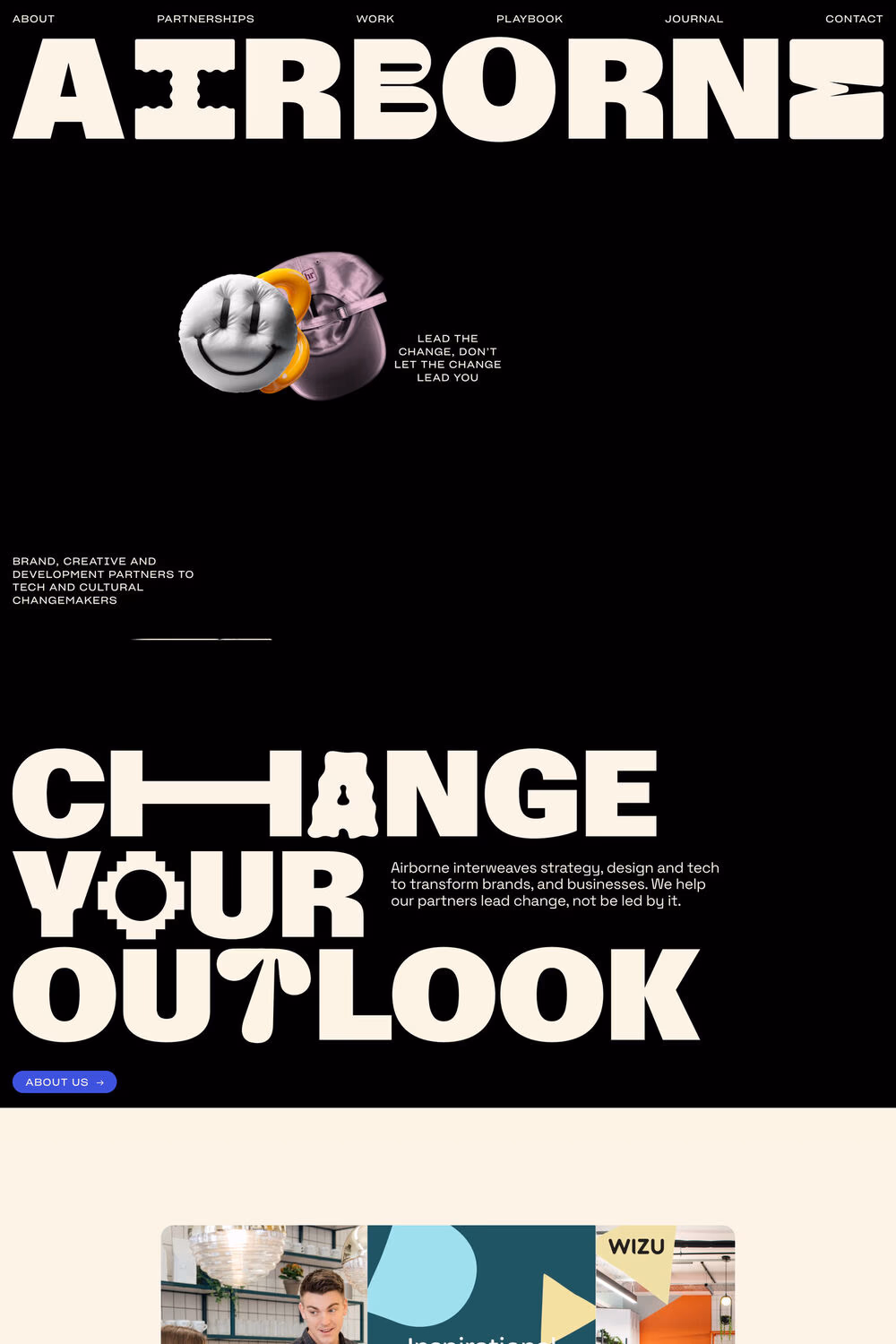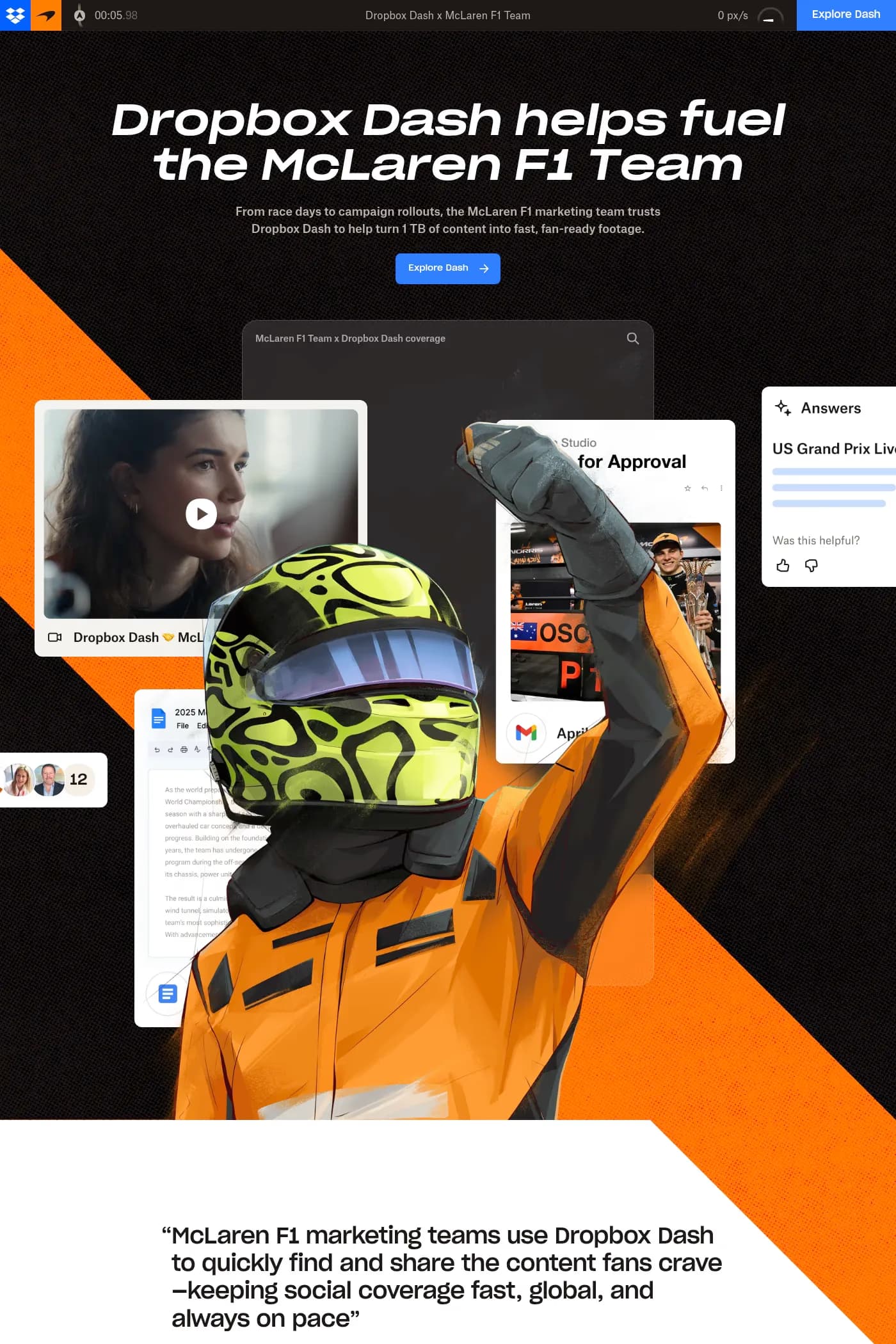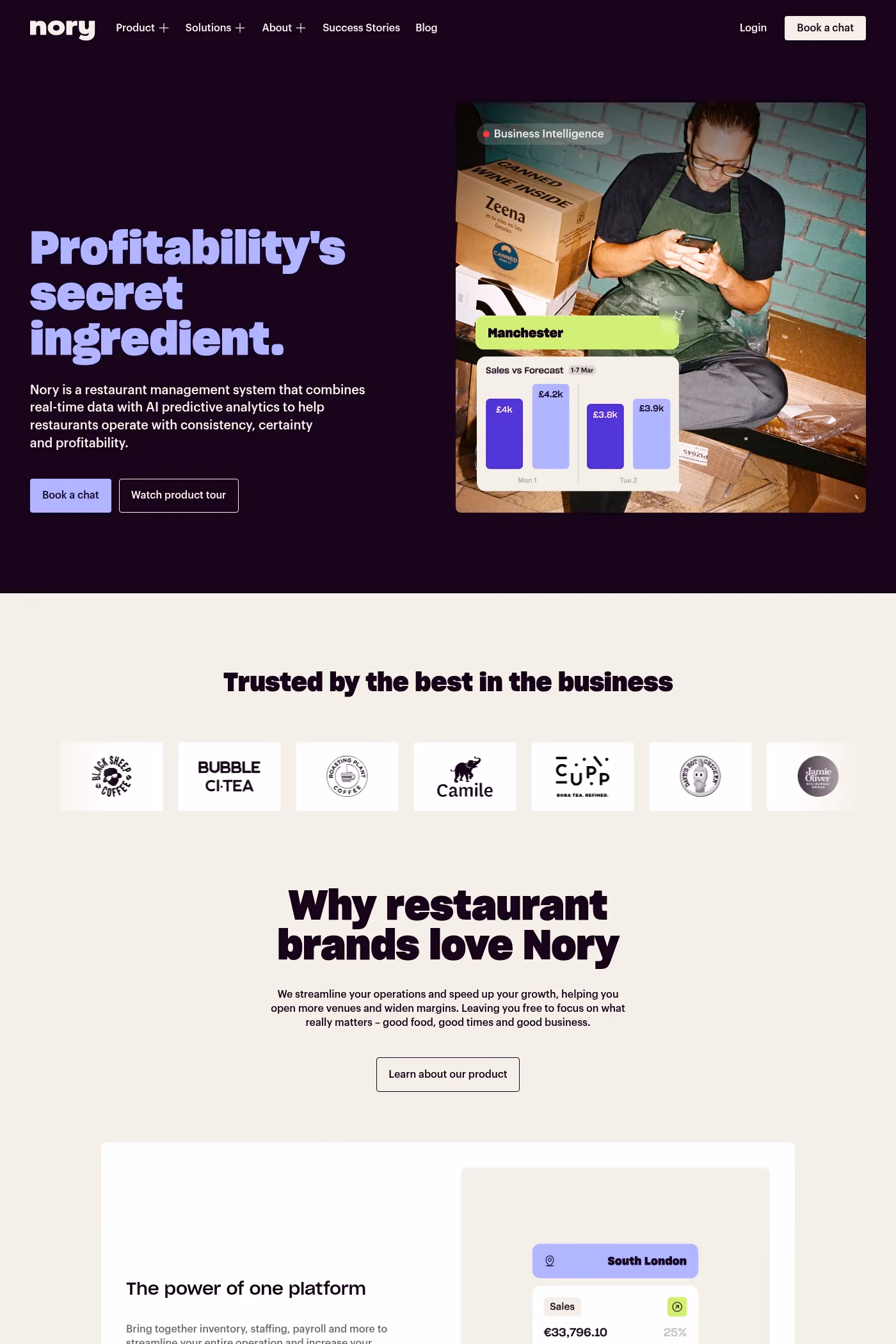
Sharp Grotesk is a sans-serif typeface from Sharp.
Sharp Grotesk Global is Sharp Type’s largest superfamily to date. It’s our most comprehensive Latin typeface, with twelve weights and seven widths in Roman and Italic styles. Sharp Grotesk now also represents our first multi-script release, with extensions in Greek, Cyrillic, Hangul, and Thai. Finally, a Latin variable font rounds out the collection. What began as a hand-drawn lettering poster in 2011 is arguably our most versatile typeface, endlessly adaptable and scalable. It’s the culmination of years of work, and it’s a prelude for what’s to come at Sharp Type.